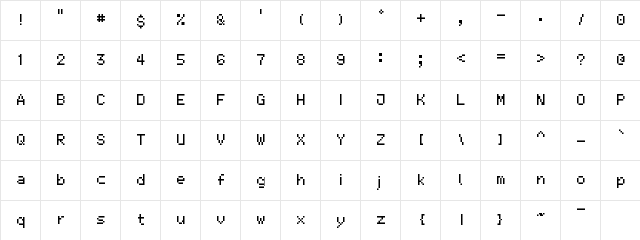
offf Regular
| Designer | ssaamm |
Design Context for offf Typeface
offf offers clean, dependable letterforms without strong stylistic allegiance, making it a practical choice for designers who need flexibility.
Pro Tip: Pair offf with a font of contrasting weight or personality to build a more expressive typographic hierarchy.